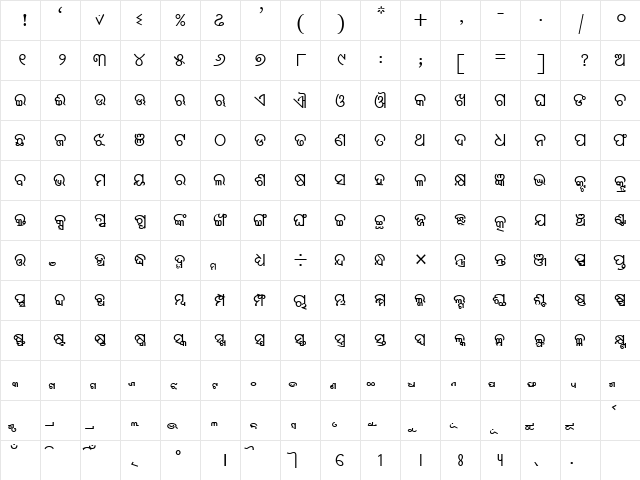
AkrutiOriLingaraj-99 Normal
Design Context for AkrutiOriLingaraj-99 Typeface
AkrutiOriLingaraj-99 is a composed and adaptable typeface that performs quietly and consistently across a wide range of design contexts.